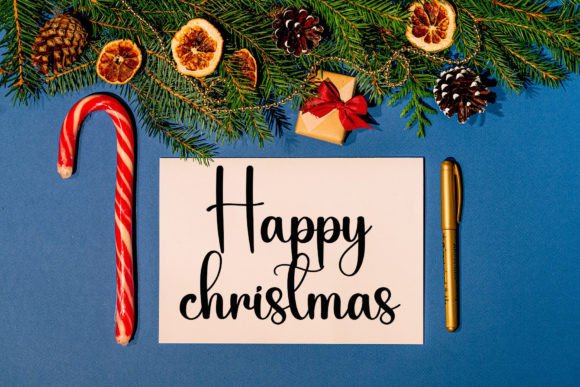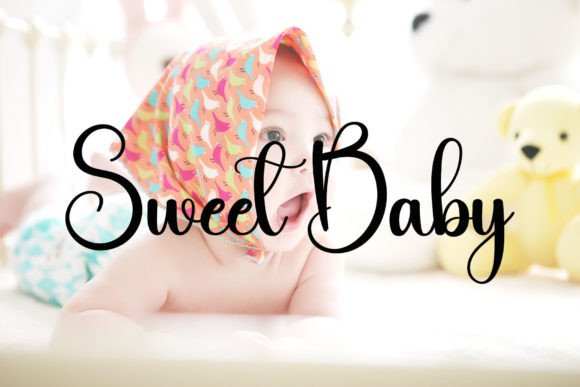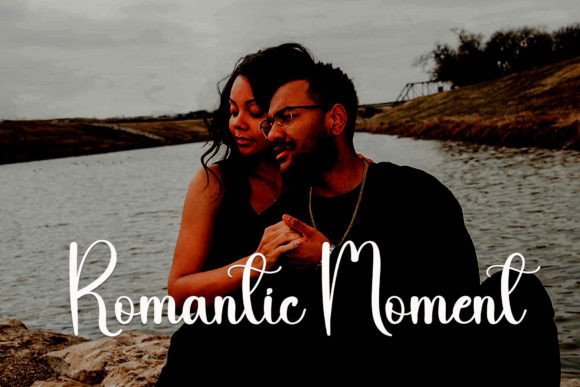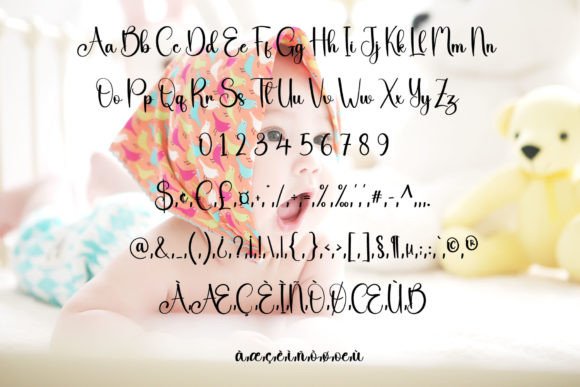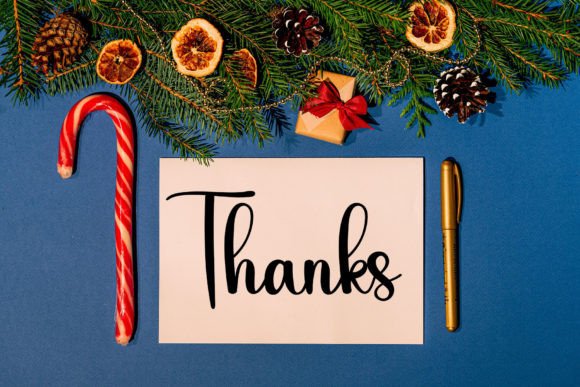
Baby Boy Font: A Sweet and Luxurious Handwritten Font for Your Design Projects
Are you looking for a font that adds a touch of elegance and sophistication to your design projects? Look no further than the Baby Boy font! This beautiful handwritten font is perfect for designers and crafters who want to create stunning visual content that stands out from the crowd. In this article, we’ll take a closer look at the Baby Boy font, its features, and how you can use it to elevate your design projects.
What is Baby Boy Font?
Baby Boy font is a sweet and beautiful handwritten font that features characters that dance along the baseline. This unique feature gives the font a playful and whimsical feel, making it perfect for designs that require a touch of luxury and sophistication. The font is designed to be versatile and can be used for a wide range of design projects, from branding and advertising to packaging and digital media.
Key Features of Baby Boy Font
- Handwritten style: Baby Boy font is a handwritten font that features beautiful, flowing script-like characters.
- Dancing baseline: The characters in the font dance along the baseline, giving it a playful and whimsical feel.
- Luxury feel: The font has a luxurious feel that makes it perfect for high-end designs and branding projects.
- Versatile: The font is versatile and can be used for a wide range of design projects.
How to Use Baby Boy Font in Your Design Projects
Baby Boy font can be used in a variety of design projects, including:
- Branding and advertising: Use the font to create stunning logos, business cards, and advertising materials that stand out from the crowd.
- Packaging design: Add a touch of luxury to your packaging designs with the Baby Boy font.
- Digital media: Use the font to create engaging social media graphics, blog posts, and website content.
- Crafting and DIY projects: The font is also perfect for crafters and DIY enthusiasts who want to create beautiful and unique projects, such as handmade cards, invitations, and scrapbooking pages.
Tips for Using Baby Boy Font Effectively
Here are some tips for using Baby Boy font effectively in your design projects:
- Use it sparingly: While the font is beautiful, it can be overwhelming if used excessively. Use it sparingly to add a touch of luxury to your designs.
- Pair it with other fonts: Pair the Baby Boy font with other fonts to create a unique and visually appealing design.
- Experiment with colors and textures: Experiment with different colors and textures to add depth and interest to your designs.
In conclusion, the Baby Boy font is a beautiful and luxurious handwritten font that can add a touch of elegance and sophistication to your design projects. Its unique features, versatility, and ease of use make it perfect for designers and crafters who want to create stunning visual content. Whether you’re working on a branding project, packaging design, or digital media, the Baby Boy font is sure to impress. So why not give it a try and see how it can elevate your design projects?